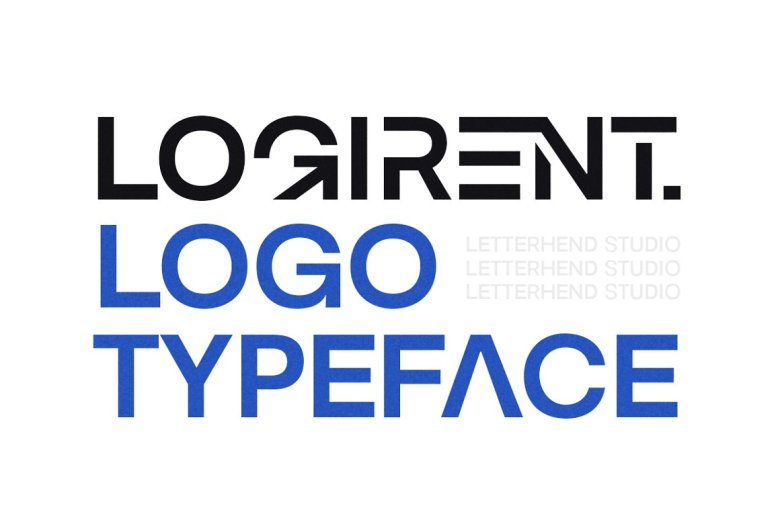
Logirent Logo Typeface
Logirent is a simple kind of typeface which is also strictly designed for a logo. Which was the richness of languages and the customization of ligatures is a special feature of this font. This font type is made precisely to be utilized especially in logo, heading, signages and the Other aforementioned ceremonial forms such as invitations, logos, magazines, books, greeting/wedding cards, packages, fashion, makeup, stationery, novels, labels or any type of advertising purposes.